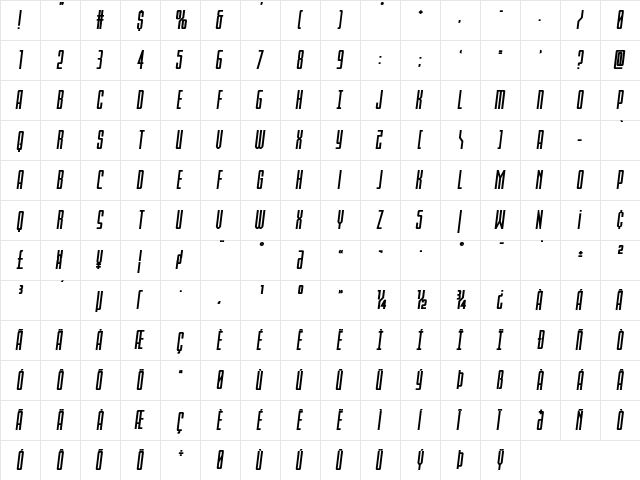
Blue Cobra Bold Expanded SemIt Regular
Design Context for Blue Cobra Bold Expanded SemIt Typeface
Blue Cobra Bold Expanded SemIt offers clean, dependable letterforms without strong stylistic allegiance, making it a practical choice for designers who need flexibility. Its bold stroke weight gives it real presence on the page.